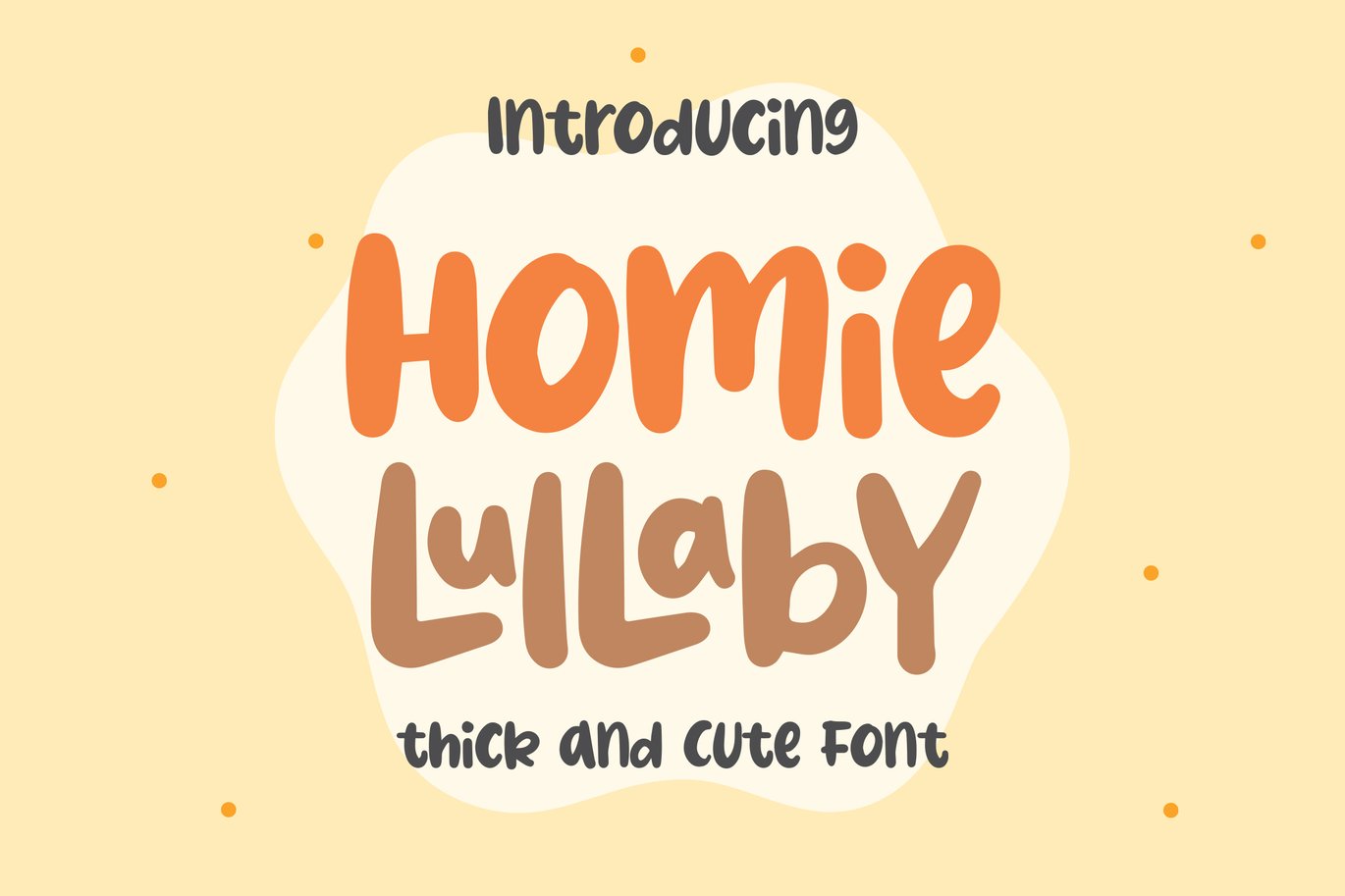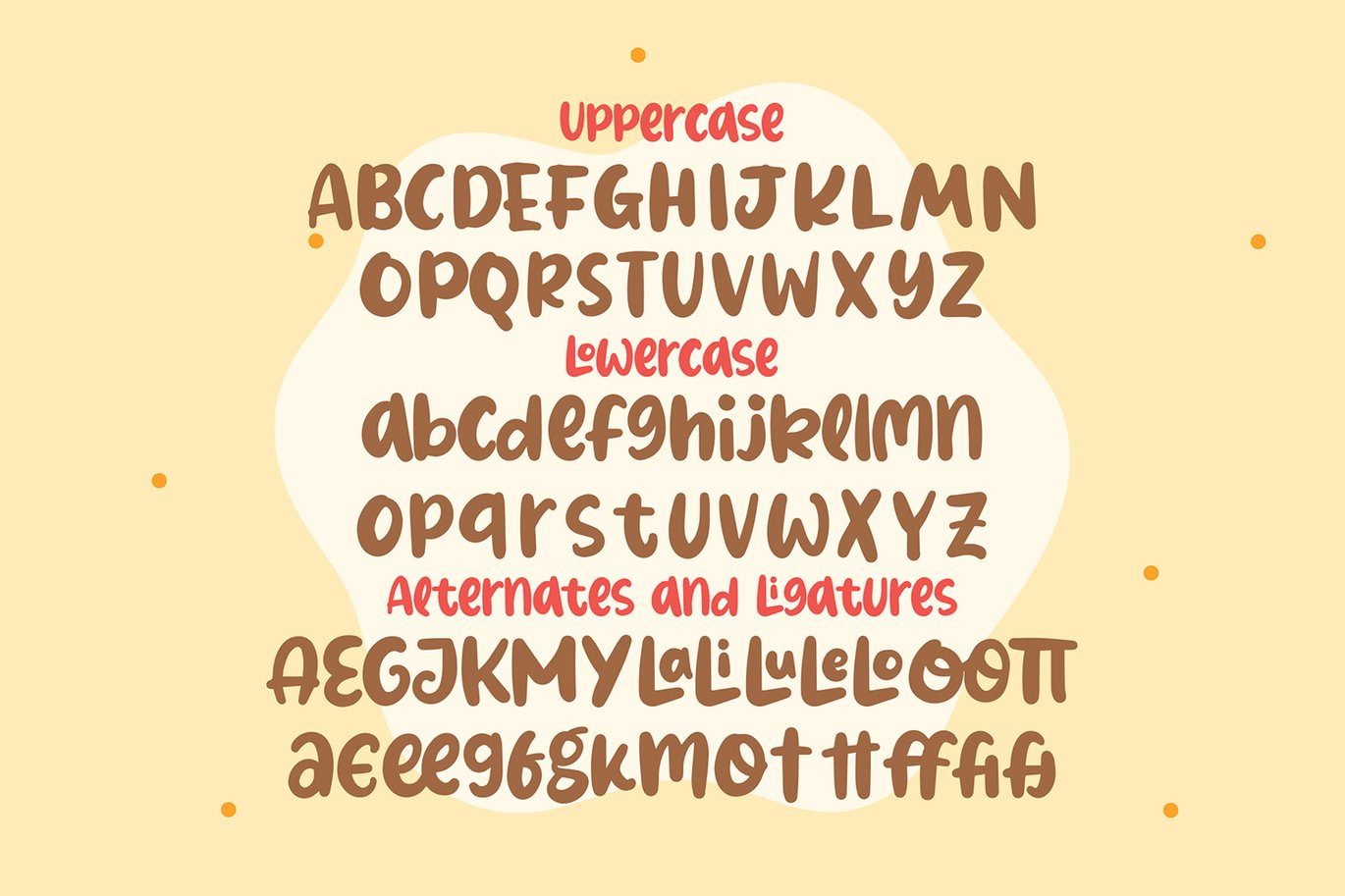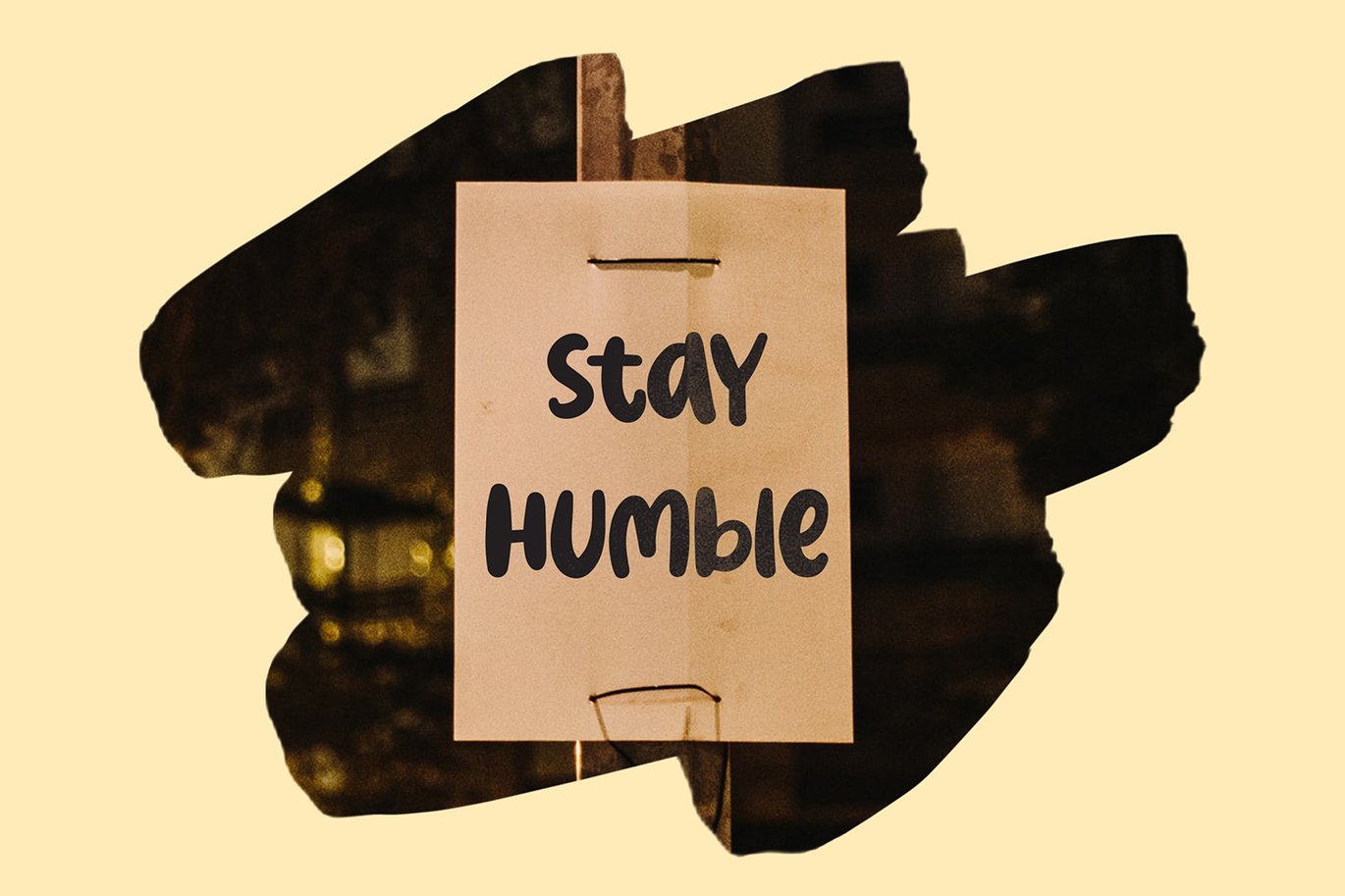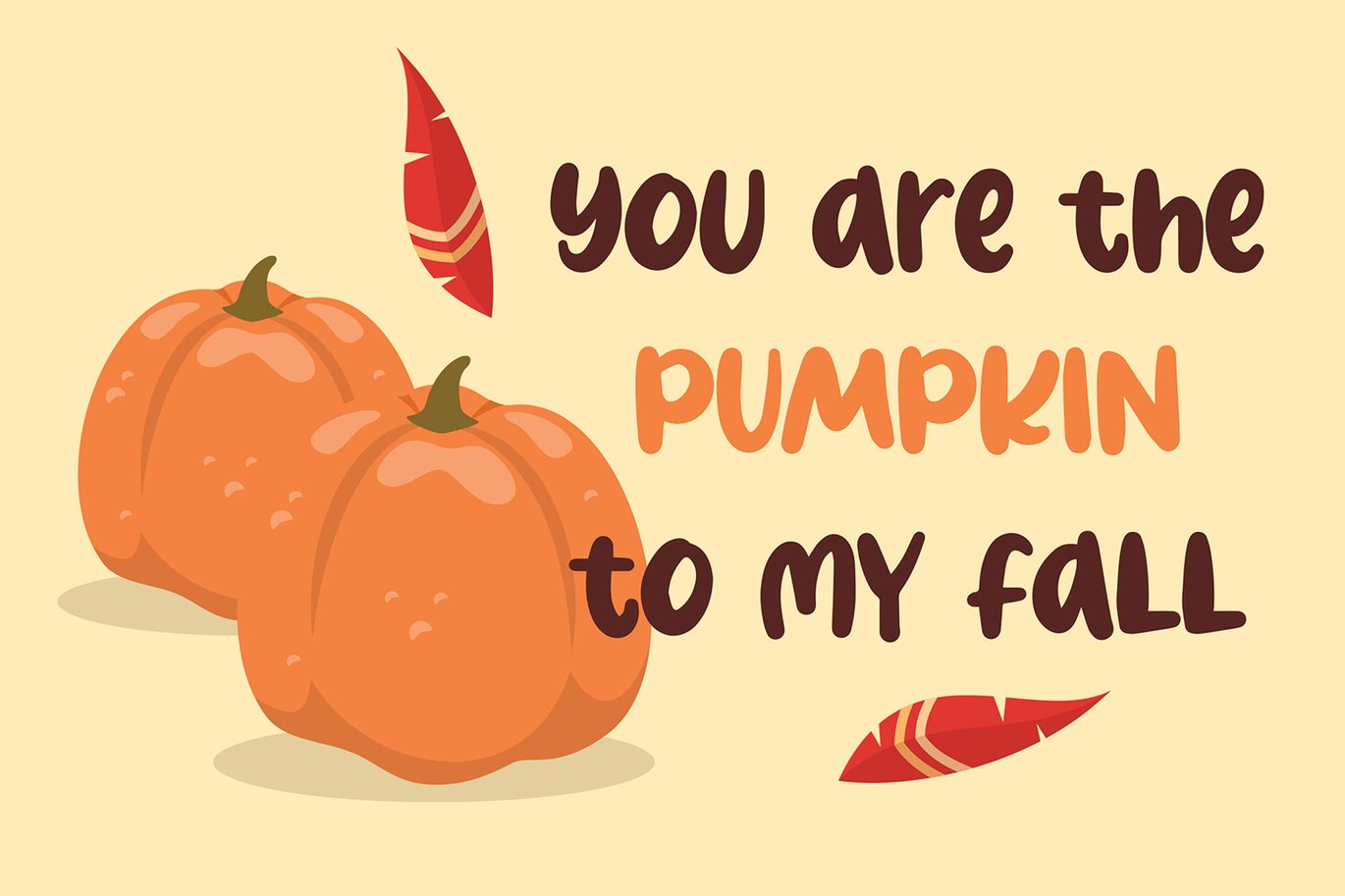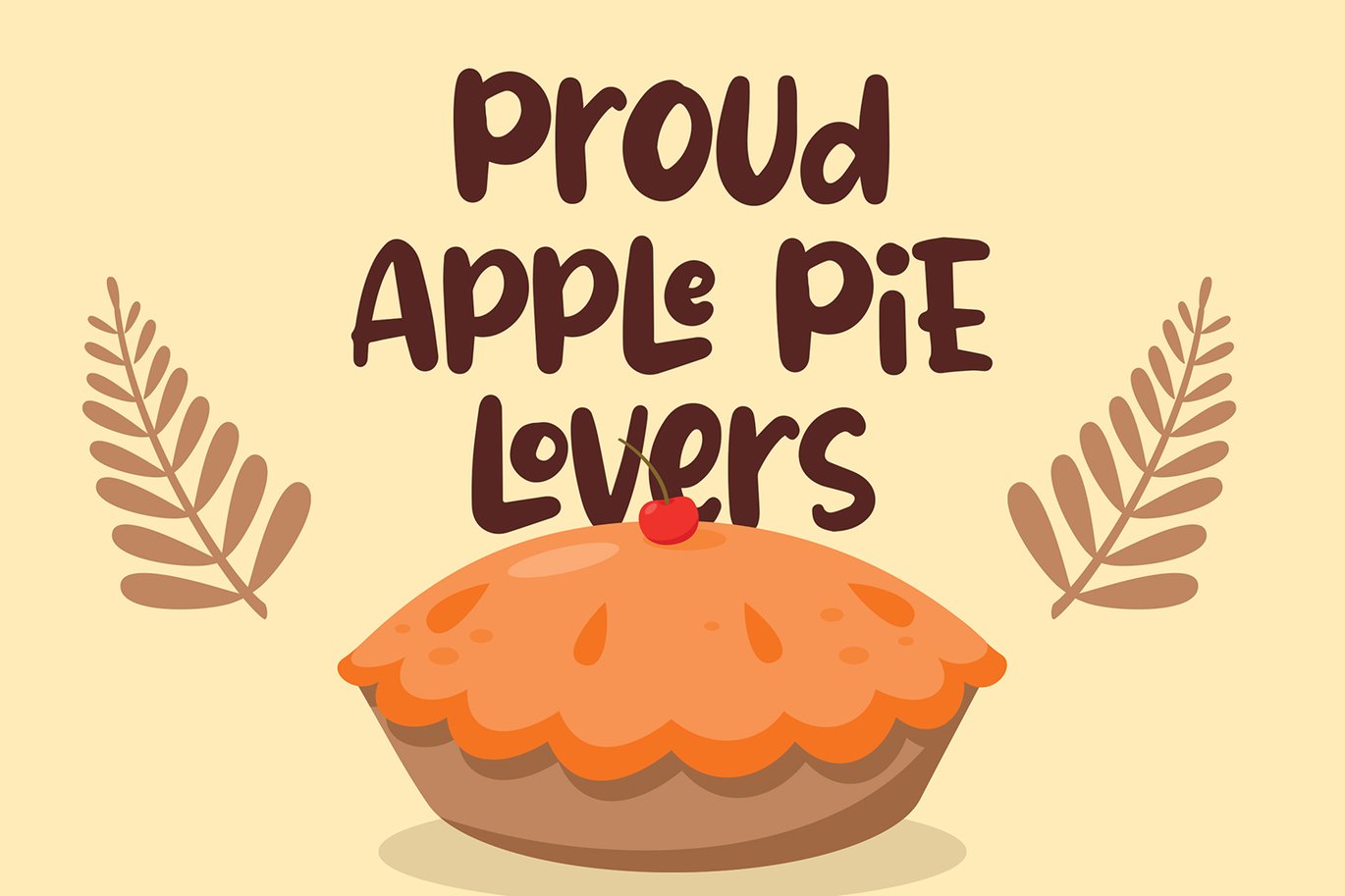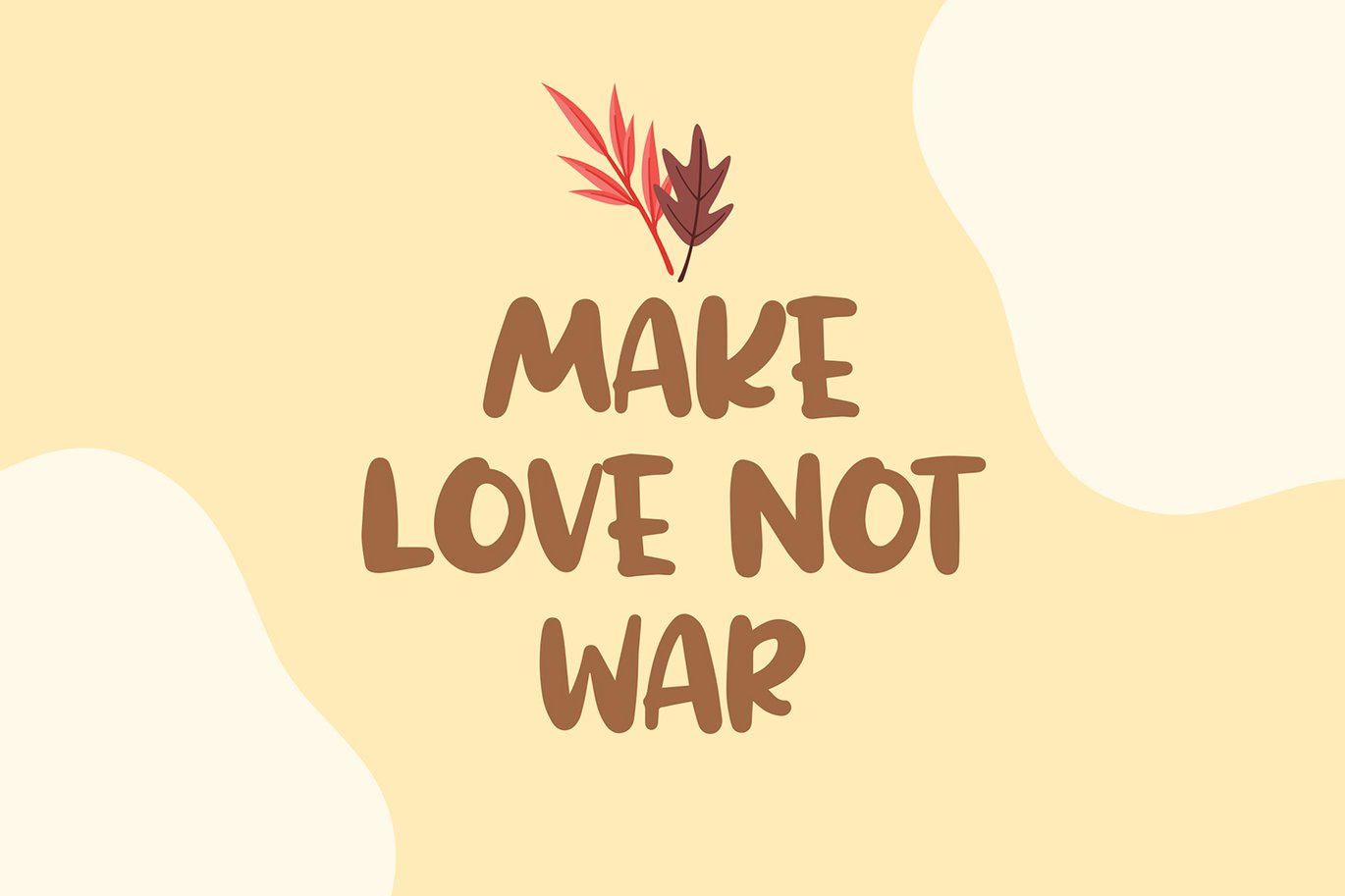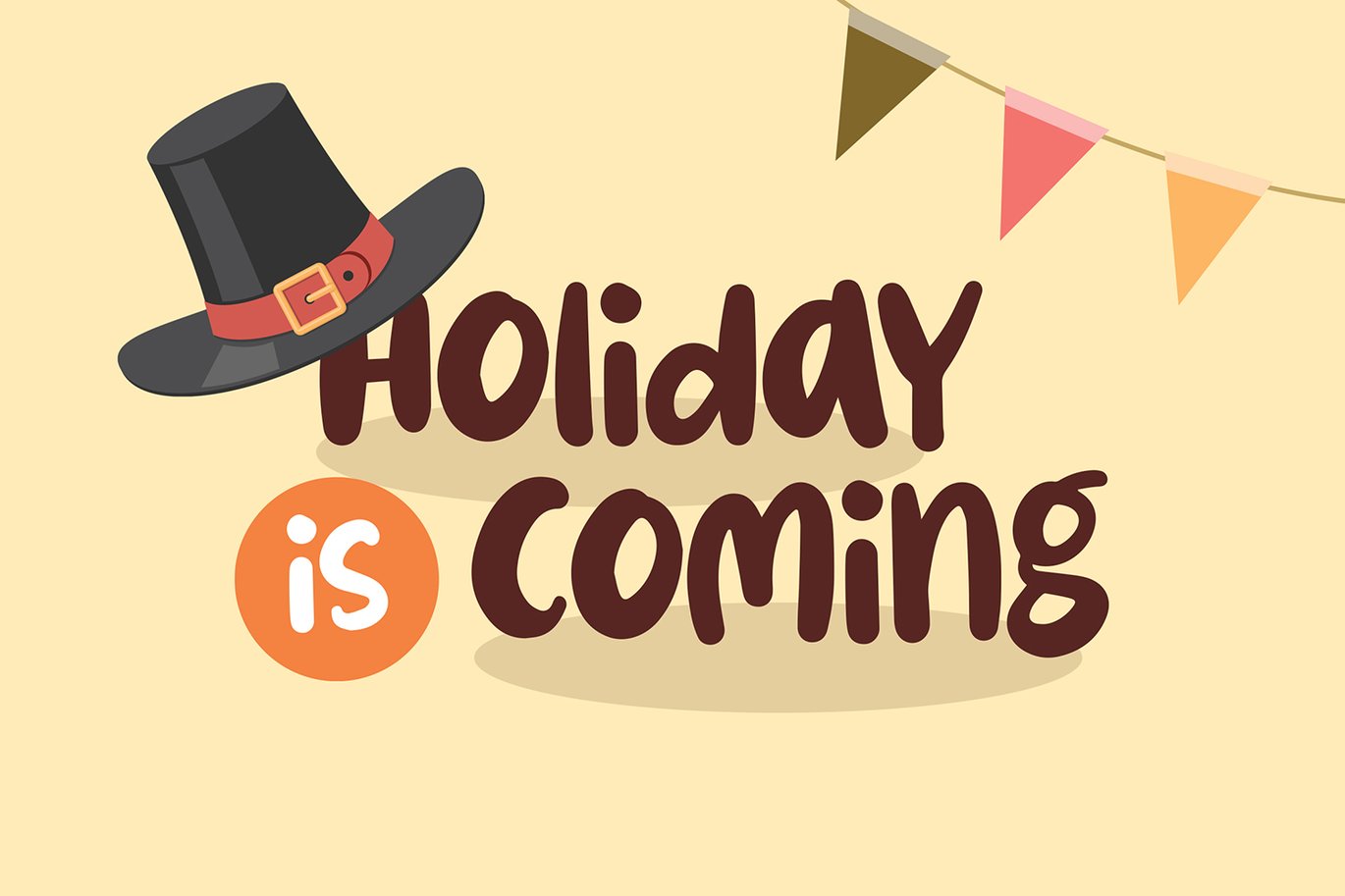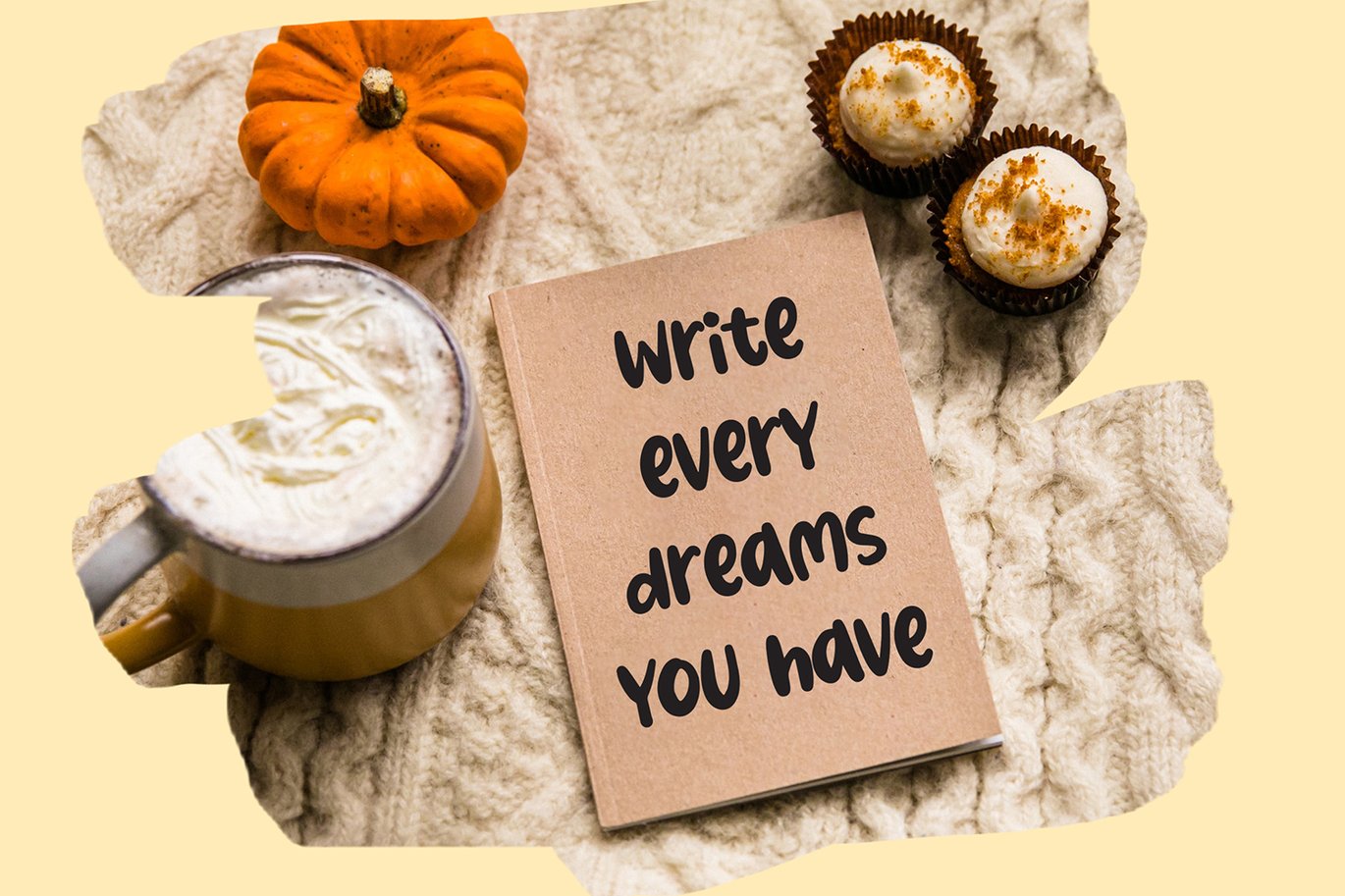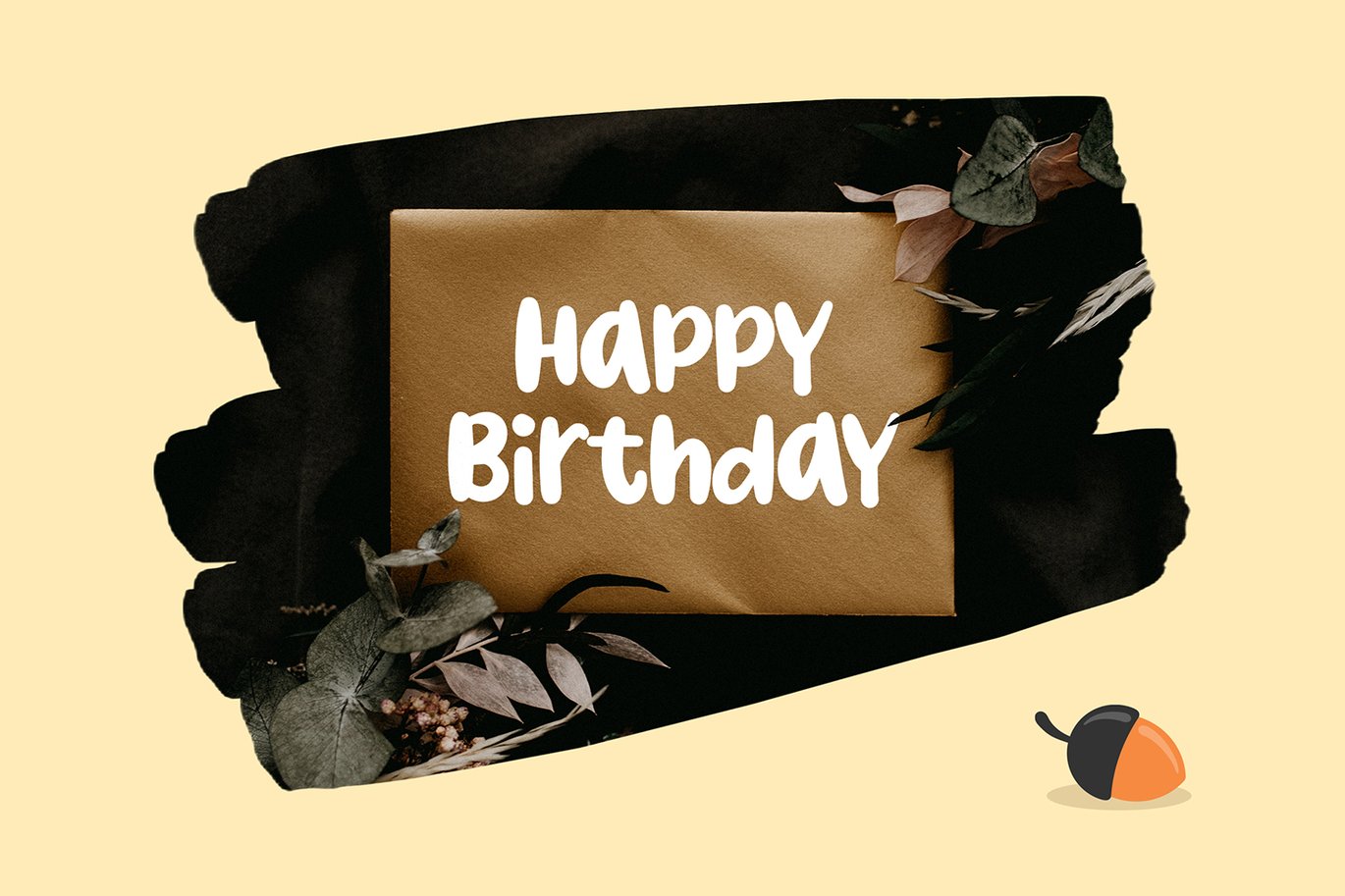
Homie Lullaby – Thick And Cute Font
Homie Lullaby – Thick And Cute Font contains a lowercase, uppercase, symbol, and also supports multi-language. There’s a lot of ligature in this font. Homie Lullaby – Thick And Cute Font also comes with ligatures, stylistic alternates and many more.
this font suitable for fashion, branding, catalog and other design that you want.